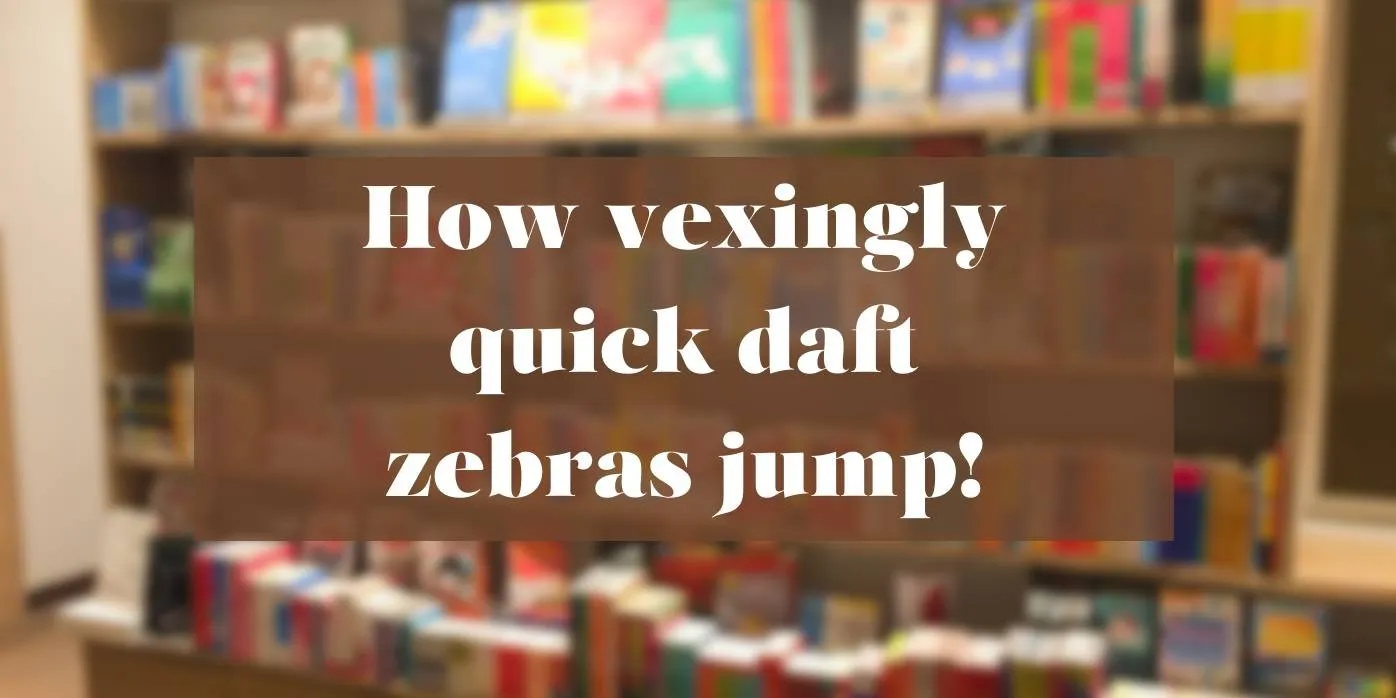
Salome Font
Salome Font is a serif typeface designed by two elegant designers Mr. Raúl García Del Pomar, Ismael González and released through Typoart in 2013. It is a very geometric face, with highly contrasting stroke weight and minimal serifs. The lowercase ‘a’ is particularly distinctive, with its extended tail.
This attractive has more special Glyphs almost more than 200 and also contains very powerful 7 styles like Light, Regular, Semibold, Bold, Black, etc. These styles give a more realistic look to your printing. Many designers use this font because of its legibility. You can put this typeface for many other programs like Adobe Photoshop, Canva, and CorelDRAW.